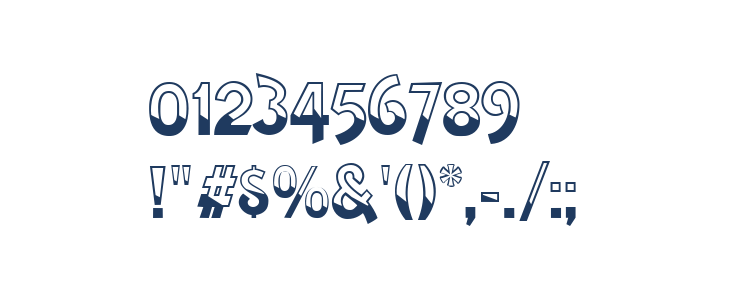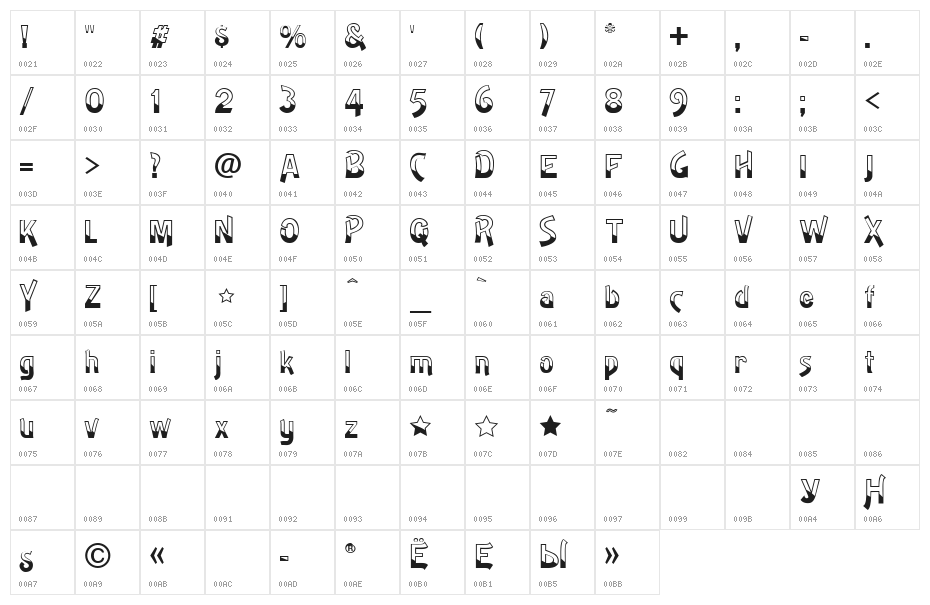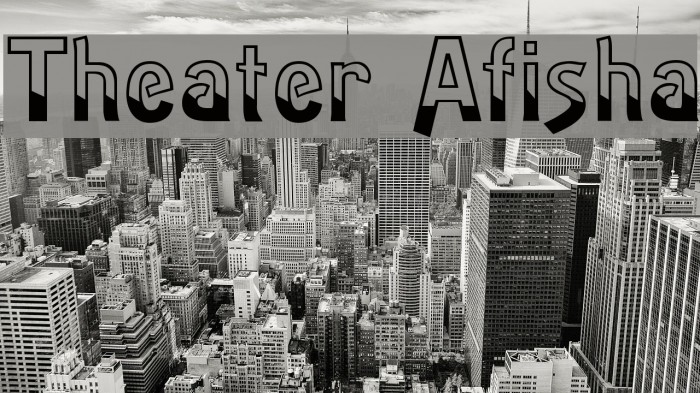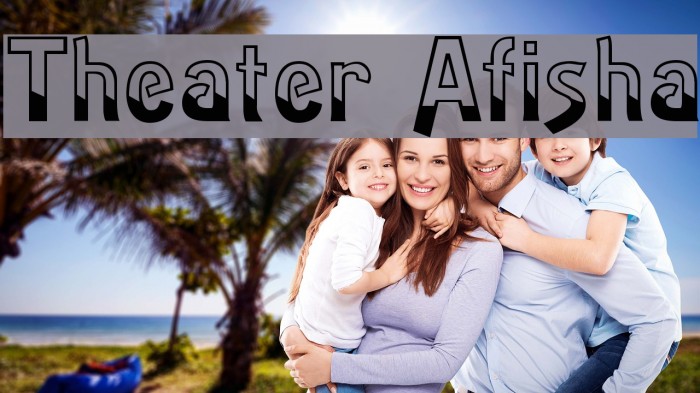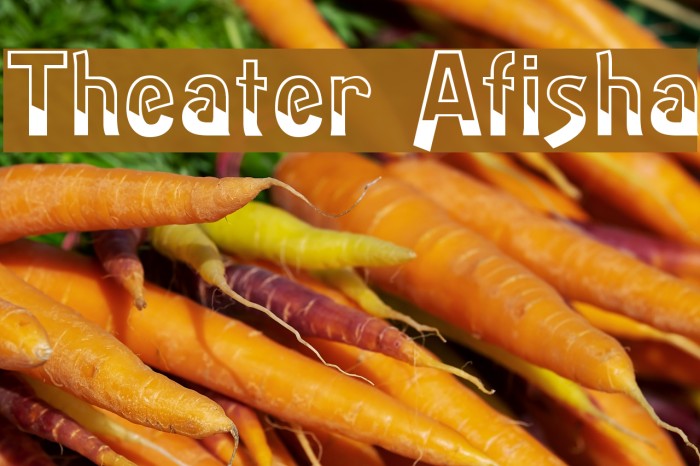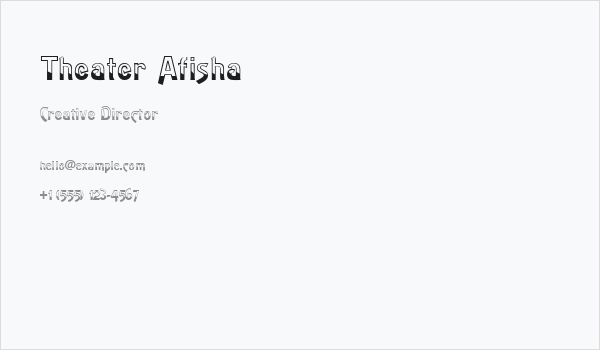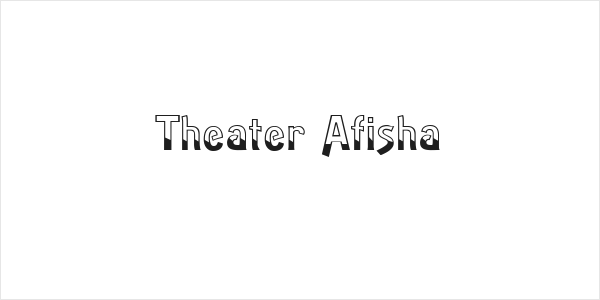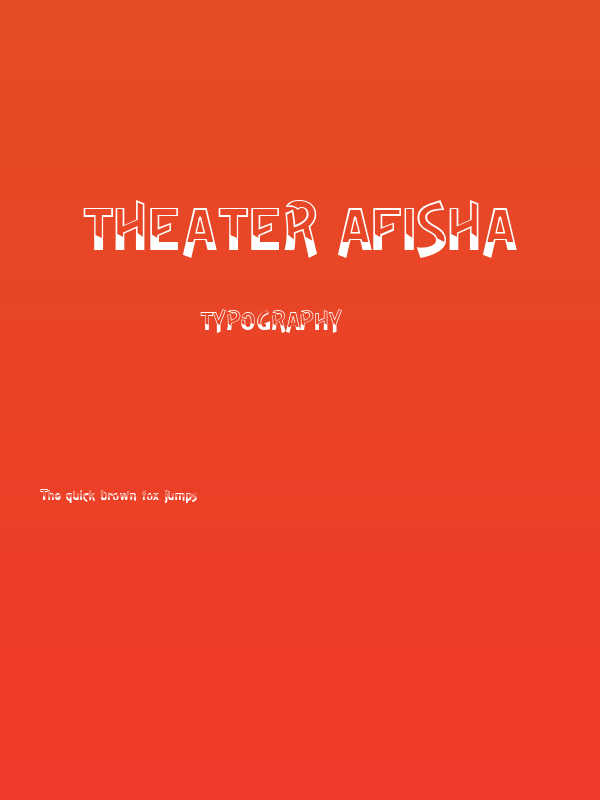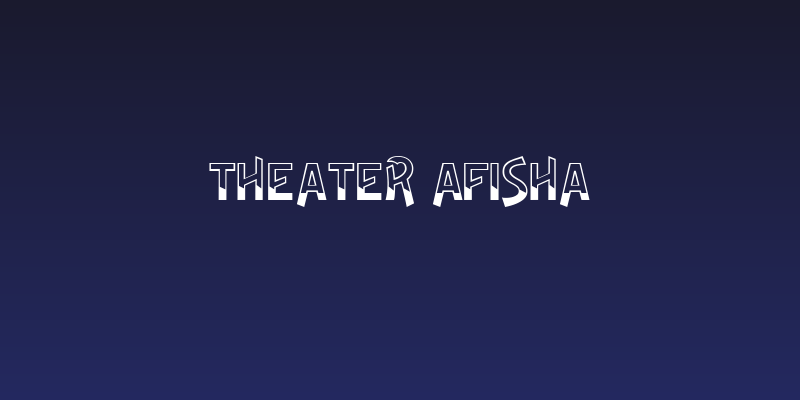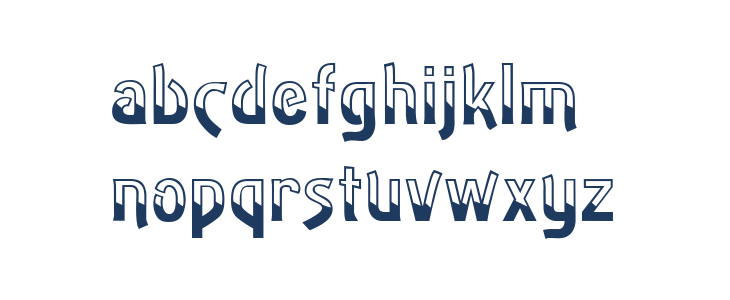
Theater Afisha Font
Theater Afisha Description
This font features a bold and dynamic design with a three-dimensional effect, giving it a sense of depth and movement. The characters are crafted with a shadow-like element that adds a playful and theatrical feel. The uppercase letters are particularly striking, with sharp angles and a strong presence. The lowercase letters maintain the same boldness, ensuring consistency throughout the typeface. The numerals and special characters are equally expressive, making this font suitable for eye-catching designs.
Use CaseHeadlines, Posters, Logos
Proposed ProjectsIdeal for theater posters, event flyers, and any design requiring a dramatic and engaging typeface.